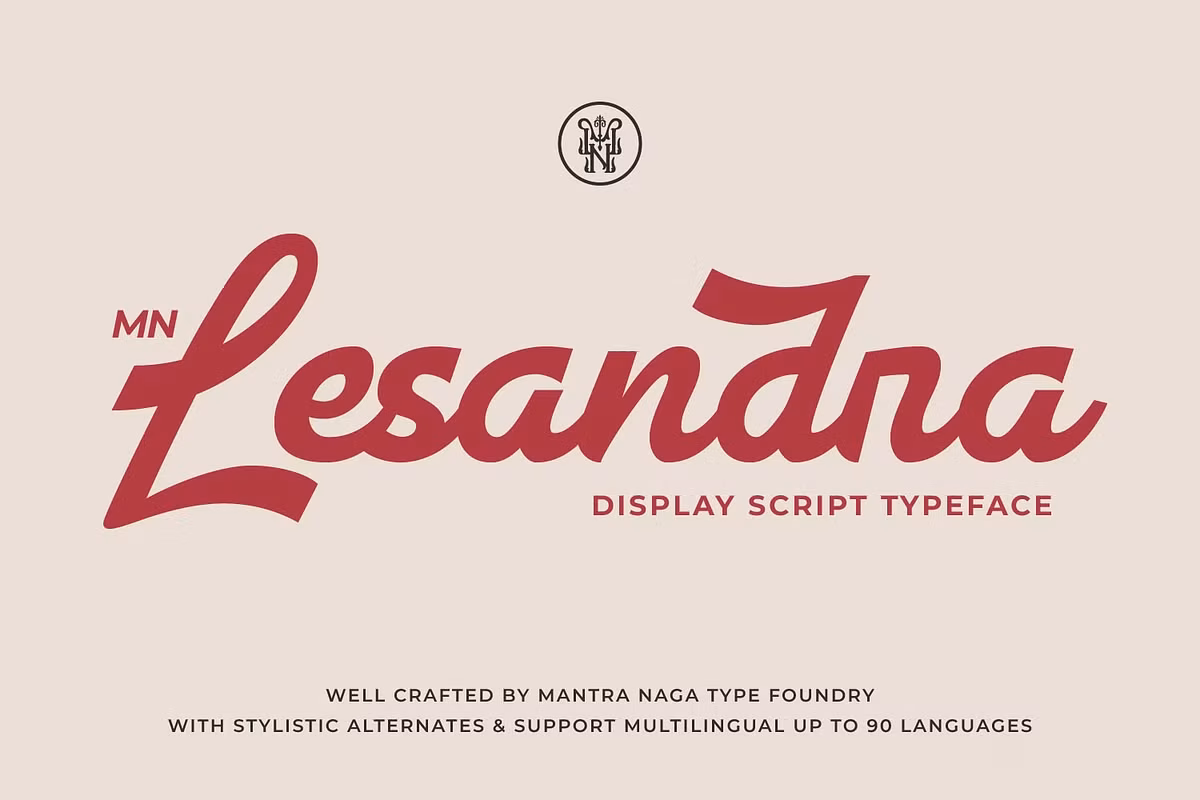
MN Lesandra - Display Script Font Free Download is an elegant and expressive typeface designed to add a luxurious, handwritten touch to your creative projects. With its flowing strokes and sophisticated curves, this display script font is perfect for wedding invitations, branding, social media graphics, packaging, and editorial design.
Crafted with attention to detail, MN Lesandra strikes a balance between modern style and timeless elegance. Its smooth baseline and stylish swashes give your text a personal, handcrafted feel while maintaining high readability across different platforms.
Whether you're designing a romantic logo or a classy headline, MN Lesandra - Display Script Font Free Download brings charm and personality to your work. Try it today for personal use, and don’t forget to obtain a commercial license for full usage rights in professional projects.